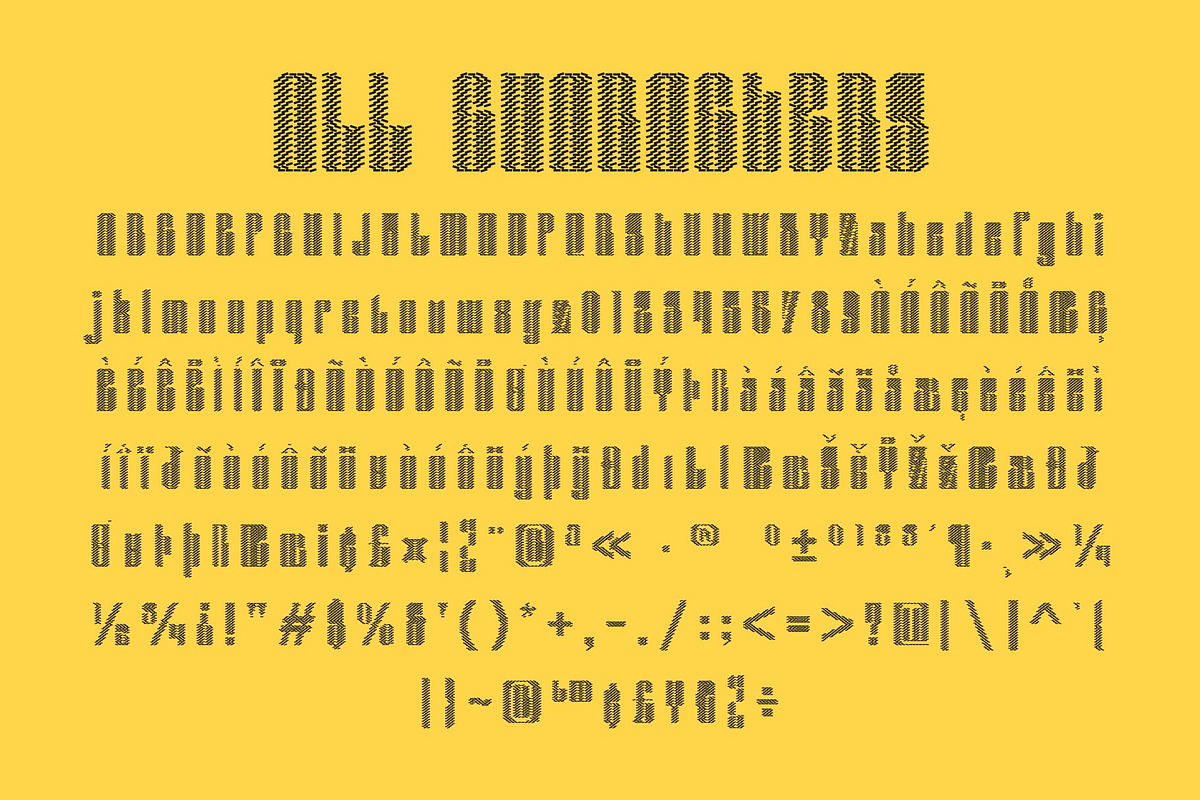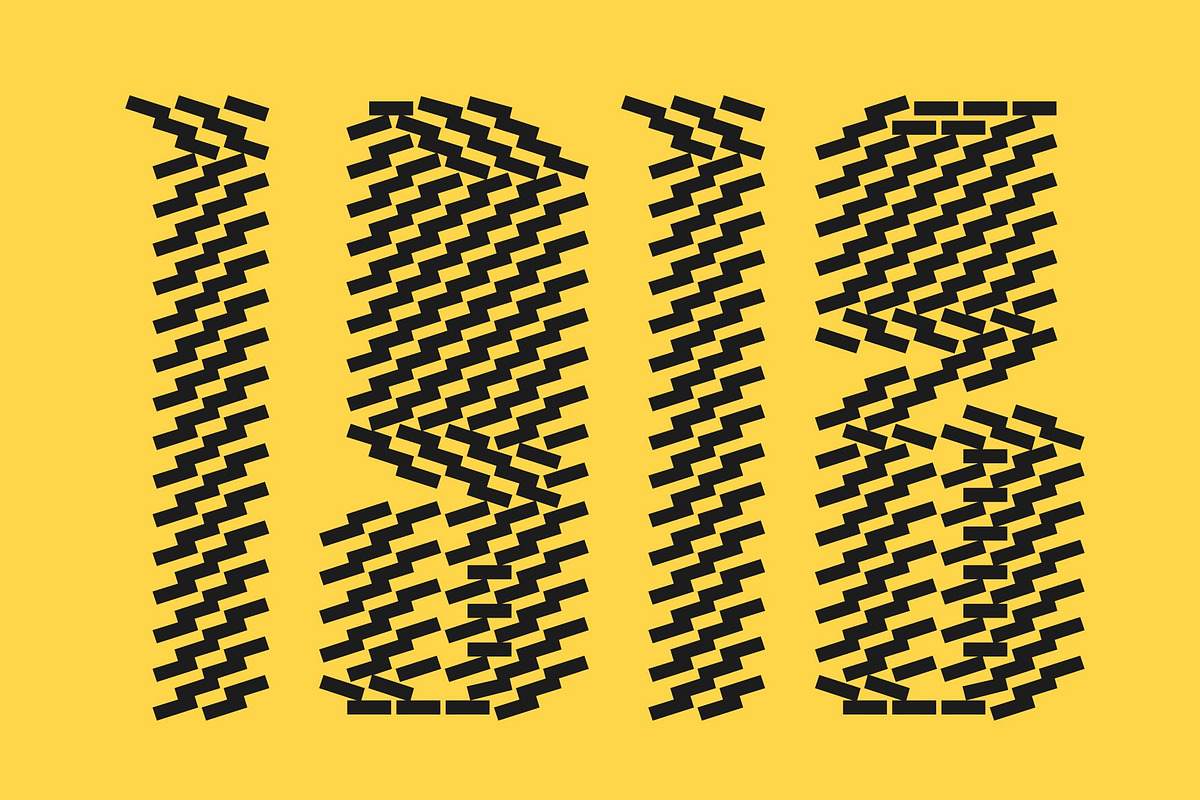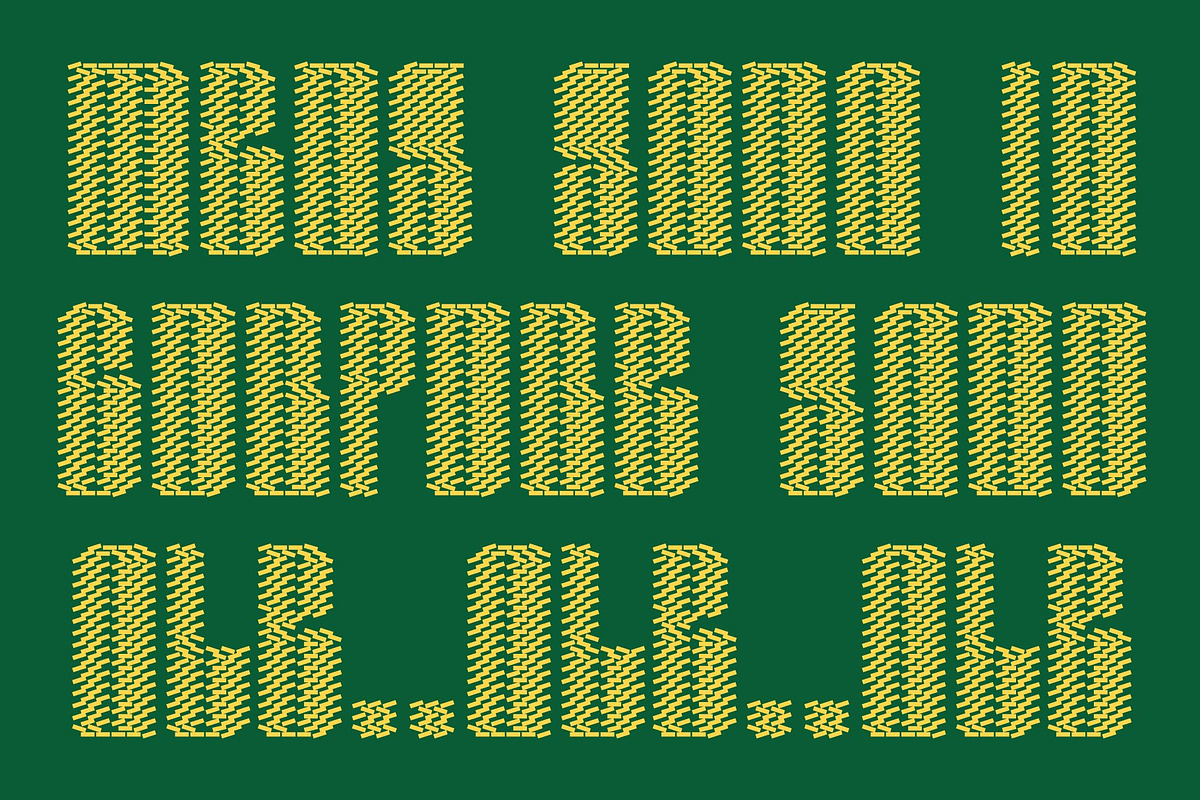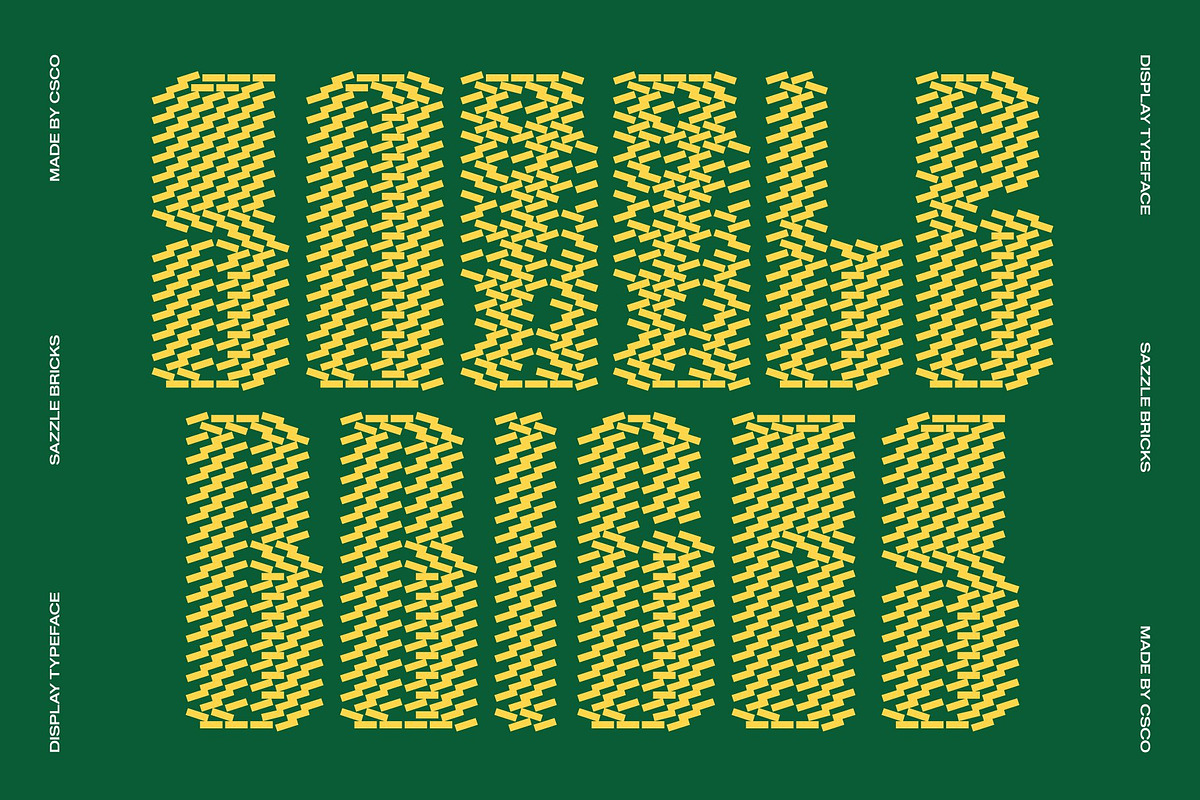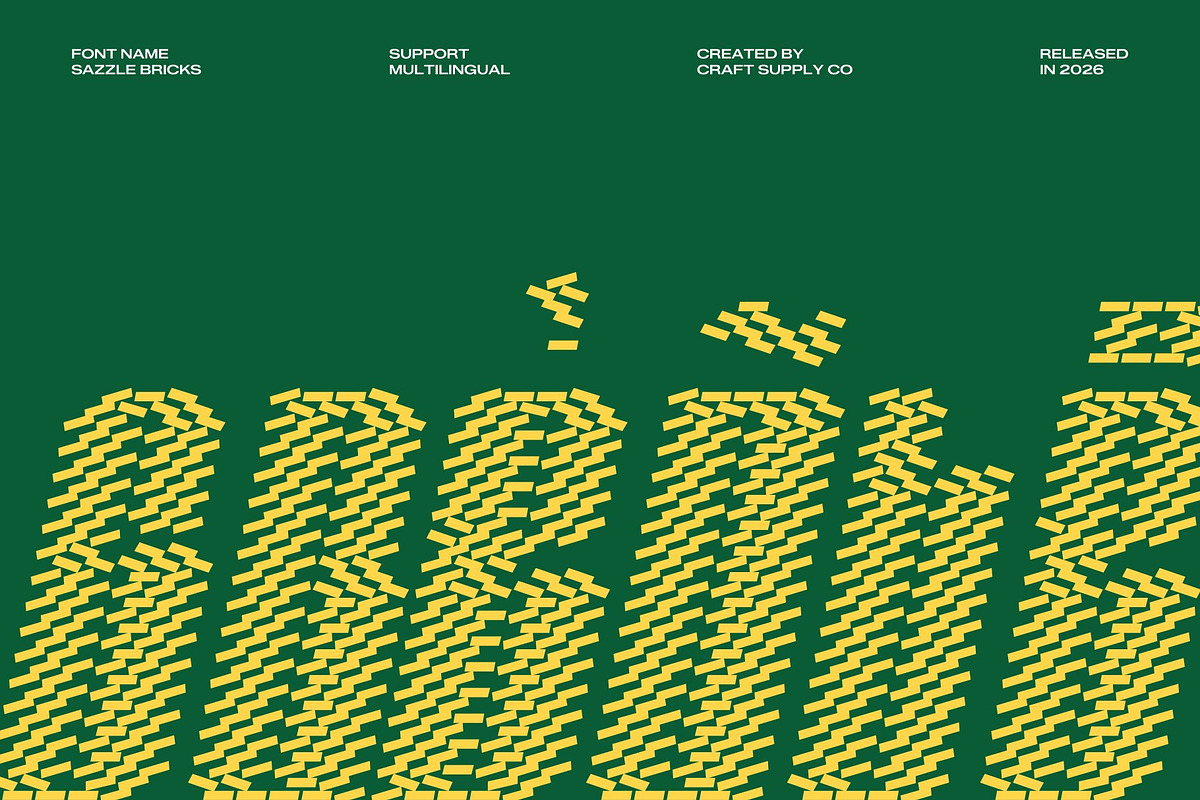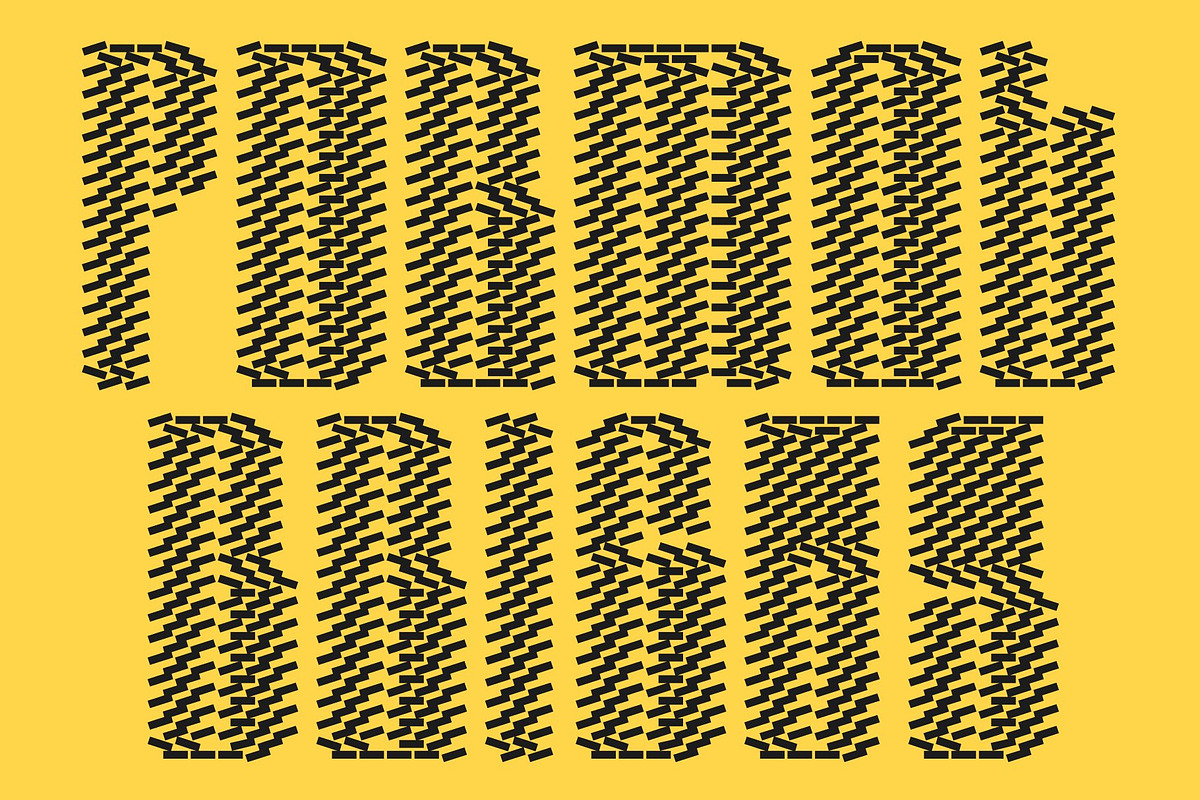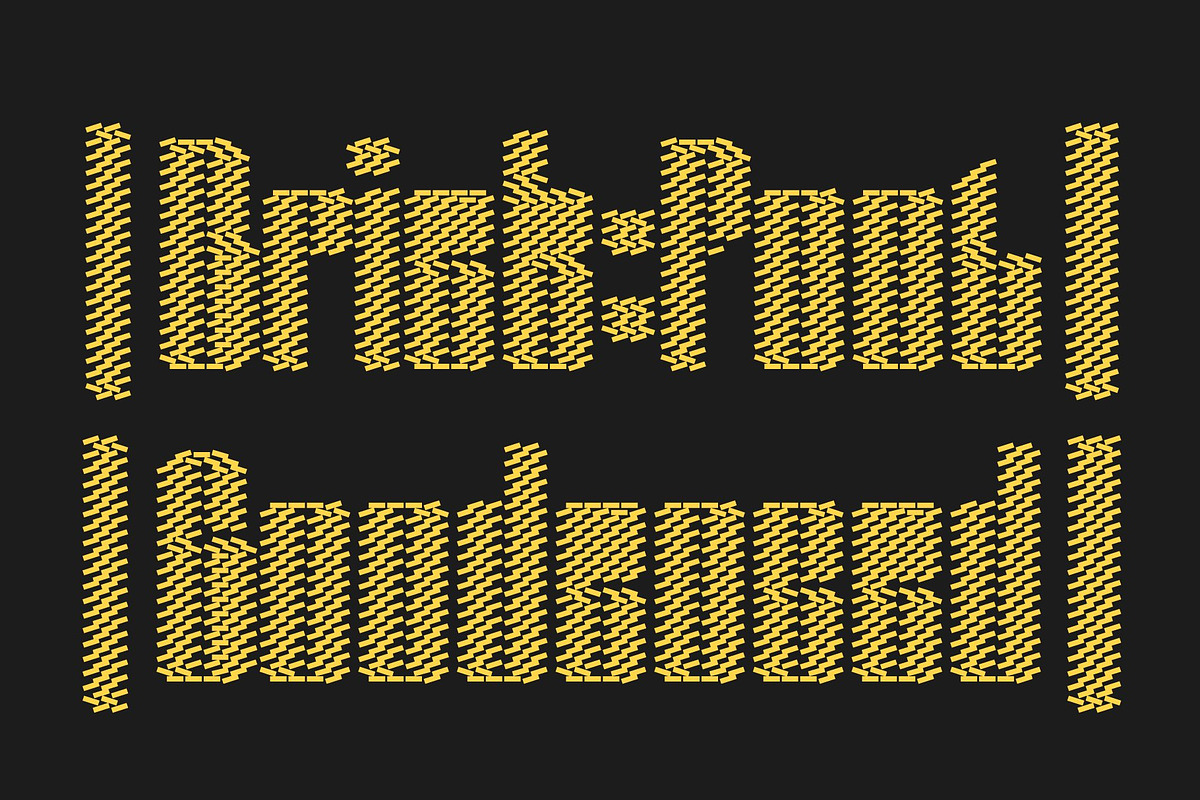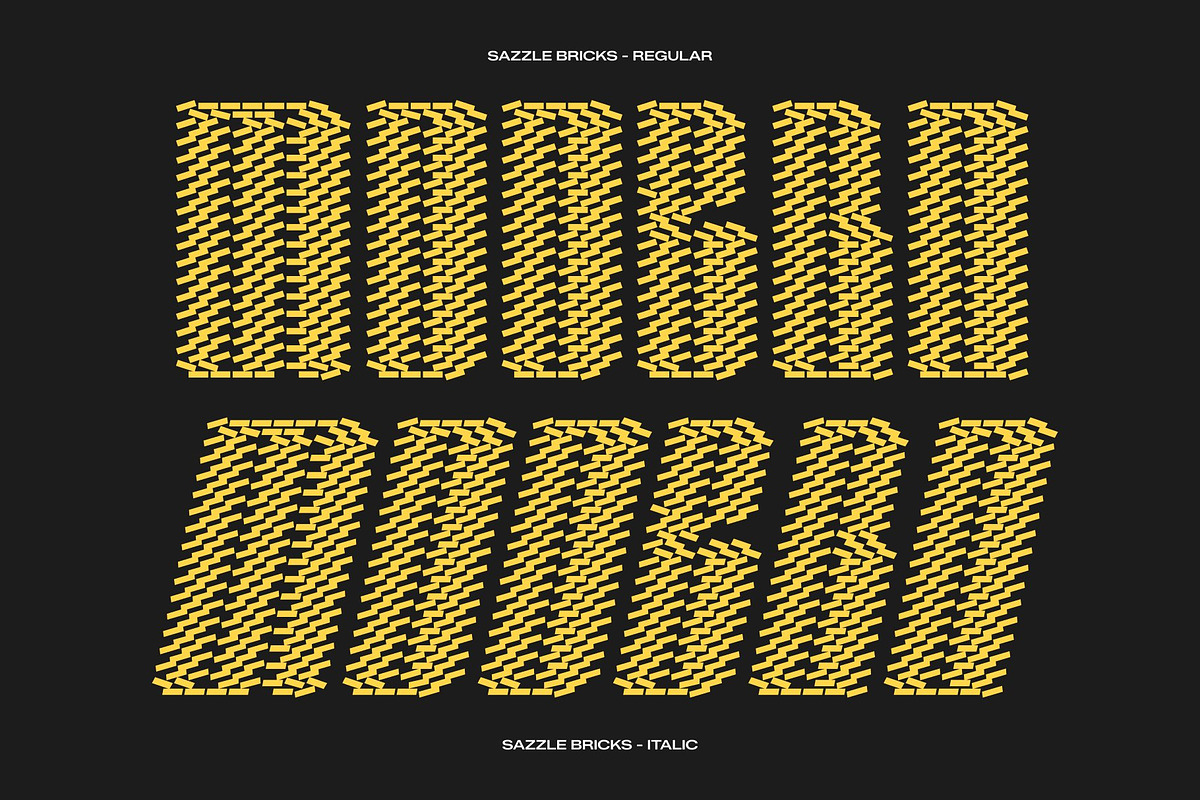
Sazzle Bricks
Sazzle Bricks – Compressed Sans Serif: Compact Power with Urban Edge
Tightly Compressed Structure with Bold Brick Character This is a compressed sans serif font designed to deliver maximum impact in minimal space. Built with tightly packed proportions and reduced white space, every letter feels efficient, confident, and visually powerful. The decorative brick-inspired detailing gives the typeface a structured, architectural personality, transforming simple typography into a bold and memorable design element that instantly captures attention.
Modern Lines that Create Strong Visual Statements With its sleek geometry and clean strokes, this font introduces a modern and sophisticated tone to any layout. The compressed design enhances vertical rhythm, allowing headlines and titles to appear taller, sharper, and more commanding. This makes the font perfect for projects that require high visibility and a confident voice without sacrificing elegance and clarity.
Designed for Eye-Catching Branding and Packaging This font thrives in creative and commercial applications that demand strong visual presence. It is an excellent choice for greeting cards, product packaging, brand identities, posters, promotional graphics, and trendy social media visuals. The brick texture adds personality and uniqueness, helping brands stand out while maintaining a polished and professional look.
Compact, Trendy, and Highly Versatile Despite its decorative character, this font maintains impressive readability across both print and digital media. Its compressed form allows designers to fit more content into limited spaces while keeping text legible and visually balanced.
Sazzle Bricks Regular
Sazzle Bricks Italic